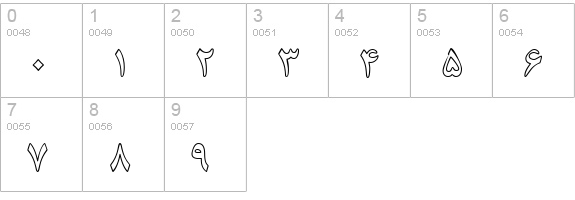
B Nazanin Outline Font Details
B Nazanin Outline is a beautifully crafted font that exudes elegance and sophistication. With its intricate outlines and graceful curves, this font is perfect for adding a touch of refinement to your designs. Whether you're working on invitations, posters, or branding materials, B Nazanin Outline will surely make a statement. The best part? B Nazanin Outline is available for free download at FontsMarket.com. This means you can easily access this stunning font and use it in your projects without any cost. Don't miss out on the opportunity to elevate your designs with B Nazanin Outline - download it today and let your creativity shine!